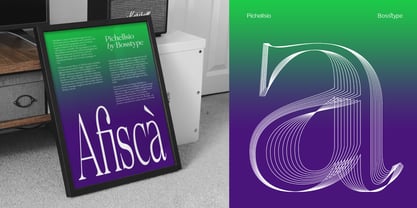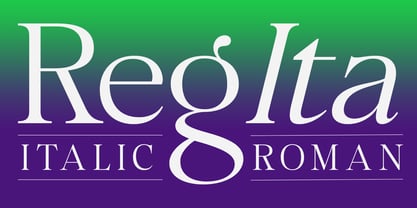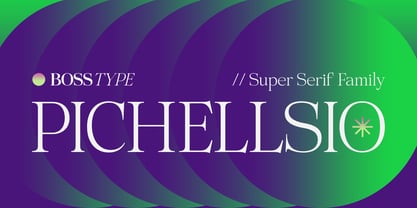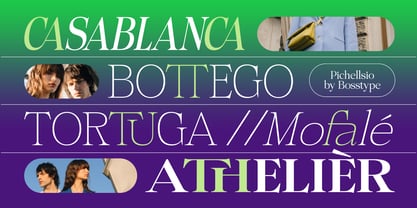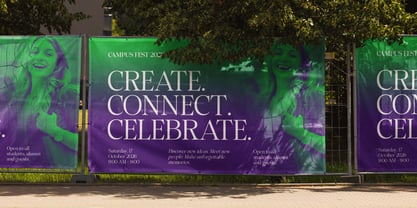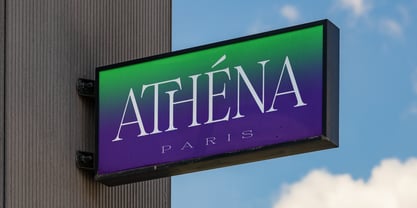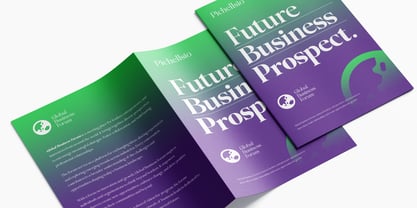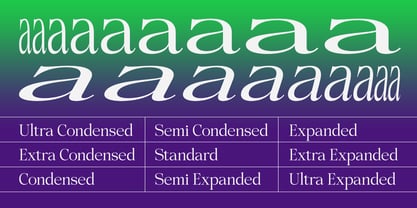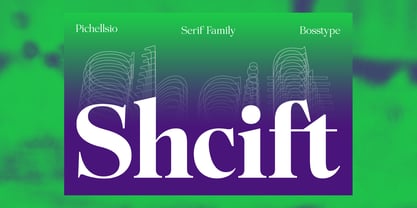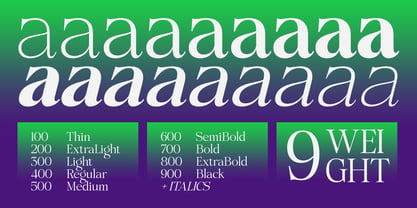
Pichellsio
by Bosstypestudio
The Pichellsio Font Family was designed by Mu Fazzal and published by Bosstypestudio. Pichellsio contains 299 styles and family package options. More about this family
Pichellsio is a comprehensive super serif family crafted for designers who seek elegance without limits. With an impressive collection of 324 font files, this family offers extraordinary versatility for luxury branding, editorial layouts, corporate identity, packaging, and sophisticated digital experiences.
Inspired by the timeless beauty of classic serif typography and refined with contemporary proportions, Pichellsio combines high-contrast strokes, graceful curves, and meticulously balanced spacing to create a premium visual presence. Every style has been carefully developed to ensure consistency, flexibility, and exceptional readability across both print and screen.
Whether you're designing a fashion magazine, creating a memorable logo, developing a premium brand identity, or producing elegant packaging, Pichellsio provides every style you need—from delicate Thin weights to commanding Black styles, complete with matching Italics and extensive OpenType features.
Designed as a complete typography system, Pichellsio allows designers to build cohesive visual identities while maintaining a luxurious and professional aesthetic across every project.
Designers: Mu Fazzal
Foundry: Bosstypestudio